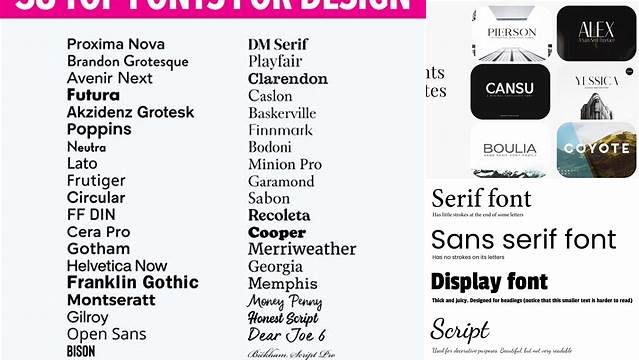
Simple Fonts For Websites: Best Choices In 2024
Choosing the right font for your website is crucial, guys! It's not just about aesthetics; it's about readability, user experience, and even your brand's personality. In 2024, simple fonts are still king. They offer a clean, modern look that ensures your content is easily digestible. Let's dive into the best simple fonts for websites that will make your site shine.
1. Why Simple Fonts Matter for Website Design
When it comes to website design, the font you choose can significantly impact user experience. Simple fonts are often the best choice because they prioritize readability and clarity. Think about it: a complicated, overly decorative font might look cool, but if your visitors are squinting to read your content, they're likely to bounce. Simple fonts ensure that your message is easily conveyed, keeping users engaged and on your site longer. Plus, they tend to load faster, which is a huge plus for SEO and user satisfaction. Choosing the right font can make or break your website's overall appeal and effectiveness. Keep it clean, keep it simple, and your audience will thank you.
2. The Importance of Readability in Web Typography
Readability is the cornerstone of effective web typography. What’s the point of having amazing content if no one can comfortably read it? Simple fonts excel in this area because they are designed with clarity in mind. Letters are well-formed, spacing is consistent, and there’s a clear distinction between characters. Poor readability can lead to frustration, higher bounce rates, and a negative perception of your brand. Think about spending hours crafting the perfect blog post, only for readers to struggle through the text due to a poorly chosen font. Choosing a highly readable font ensures that your content is accessible to everyone, regardless of their reading habits or visual abilities. Prioritize readability, and you'll create a more engaging and user-friendly website.
3. Best Sans-Serif Fonts for Clean Website Design
Sans-serif fonts are the go-to choice for clean and modern website designs. They lack the small decorative strokes (serifs) found in traditional fonts, giving them a minimalist and approachable feel. Some of the best sans-serif fonts for websites include classics like Arial, Helvetica, and Open Sans. These fonts are incredibly versatile and work well for body text, headings, and everything in between. They’re also highly readable on screens, making them ideal for digital content. Consider using a sans-serif font if you want to convey a sense of simplicity, clarity, and modernity. Whether you're building a corporate website, a blog, or an e-commerce store, a well-chosen sans-serif font can significantly enhance your site's visual appeal and user experience.
4. Top Serif Fonts for Websites That Need a Classic Touch
Serif fonts bring a touch of classic elegance to website design. Unlike their sans-serif counterparts, serif fonts have small decorative strokes at the ends of the letters. This gives them a more traditional and formal appearance, making them a great choice for websites that want to convey a sense of authority, trustworthiness, or sophistication. Popular serif fonts for websites include Times New Roman, Georgia, and Merriweather. While they might seem old-fashioned, when used correctly, serif fonts can add a timeless appeal to your site. They're particularly effective for headlines and longer blocks of text, providing a visual anchor that guides the reader's eye. If you're aiming for a classic, refined look, a serif font might be just what you need.
5. Google Fonts: A Treasure Trove of Simple Font Options
Google Fonts is a game-changer for web designers. It’s a vast library of free, open-source fonts that you can easily integrate into your website. This resource is a treasure trove of simple font options, offering a wide range of styles to suit any design aesthetic. Fonts like Roboto, Open Sans, and Lato are particularly popular for their clean lines and excellent readability. The best part about Google Fonts is that they’re optimized for the web, so you don’t have to worry about slow loading times. Plus, they’re incredibly easy to implement – just a few lines of code, and you're good to go. Whether you're on a tight budget or just looking for high-quality, free fonts, Google Fonts is your best friend.
6. Font Pairing: How to Combine Simple Fonts Effectively
Font pairing is an art, guys! It's about selecting two or more fonts that complement each other, creating a cohesive and visually appealing design. When pairing simple fonts, the key is to create contrast while maintaining harmony. For example, you might pair a bold sans-serif font for headings with a more delicate serif font for body text. This creates a clear visual hierarchy, making your content easier to navigate. A common strategy is to pair a sans-serif font with a serif font, but you can also mix and match within the same family. Experiment and see what works best for your brand’s aesthetic. Just remember, less is often more – stick to two or three fonts max to keep your website looking polished and professional.
7. The Role of Font Size and Line Height in Readability
Font size and line height are critical factors in readability. Even the simplest font can be hard to read if the size is too small or the lines are crammed together. Generally, a font size of 16px or larger is recommended for body text on websites. This ensures that your content is comfortable to read on various devices. Line height, or the spacing between lines of text, also plays a crucial role. A good rule of thumb is to set your line height to around 1.5 times the font size. This gives your text breathing room and prevents it from feeling cluttered. Adjusting these settings can dramatically improve the readability of your website, making it a more pleasant experience for your visitors.
8. Simple Fonts and Website Loading Speed: What’s the Connection?
Website loading speed is a big deal, guys! And believe it or not, your choice of fonts can impact it. Simple fonts, particularly those hosted on platforms like Google Fonts, are generally optimized for the web. This means they load quickly, which is crucial for keeping your visitors engaged and your SEO ranking high. Complex or custom fonts, on the other hand, can sometimes slow down your site, especially if they’re not properly optimized. Slow loading times can lead to higher bounce rates and a negative user experience. So, when choosing fonts for your website, consider the impact on loading speed. Simple fonts are often the best choice for ensuring a fast and efficient website.
9. Accessibility and Simple Fonts: Making Your Website Inclusive
Accessibility is a key consideration in web design, and your choice of fonts plays a significant role. Simple fonts are generally more accessible because they’re easier to read for people with visual impairments or reading difficulties. Clear, well-spaced letters and a consistent design can make a huge difference. When choosing fonts for accessibility, look for those with good contrast and avoid overly decorative styles. Providing options for users to adjust font size and contrast can also enhance accessibility. By prioritizing accessibility in your font choices, you can ensure that your website is inclusive and user-friendly for everyone.
30. The Future of Simple Fonts in Web Design: Trends and Predictions
The future of simple fonts in web design looks bright. As websites continue to prioritize user experience and readability, simple fonts will remain a popular choice. We can expect to see more variations and refinements of existing fonts, as well as new simple fonts that push the boundaries of design. Variable fonts, which allow for greater flexibility and customization, are also likely to play a bigger role. Overall, the trend towards simplicity and clarity in web typography is set to continue, making simple fonts a staple of web design for years to come.